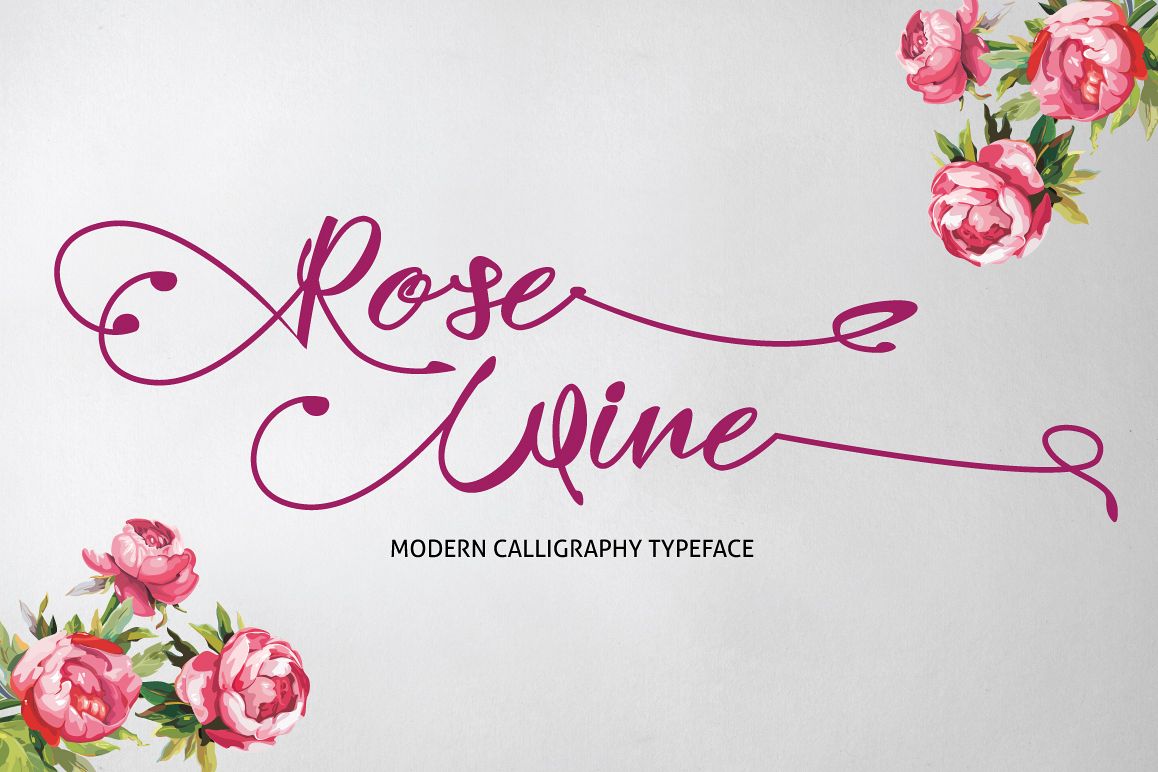
Rose Wine Typeface
Introducing "Rose Wine Handwriting Typeface" Can be used for various purposes namely headings, signatures, logos, wedding invitations, t-shirts, letterheads, signages, labels, news, posters, badges etc. It is ONLY $10 for a limited time! :) Product Content: RoseWine.otf RoseWine.ttf RoseWine Web Font (eot, svg, woff) Features: Uppercase Lowercase Numeral & Punctuations (Open Type Standard) Ligatures Note: Swashes used in cover image are not alternates. However, vector swashes are included in the download file You may combine any swashes with each individual font as you like by using program like Adobe Illustrator or CorelDraw Use a program that supports OpenType features such as Adobe Illustrator CS, Adobe Indesign & CorelDraw X6-X7 to access the full features of this typeface. How-to pdf included in the package. Feel free to contact me for additional supports. Personal and Commercial use are permitted